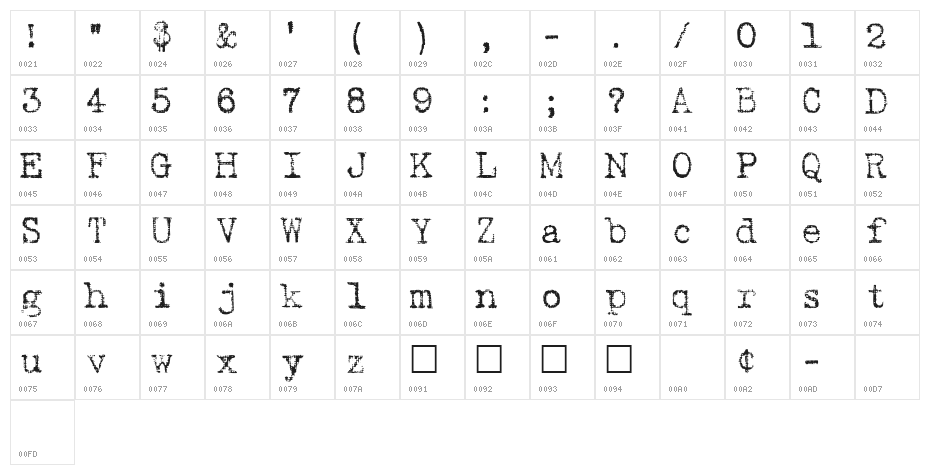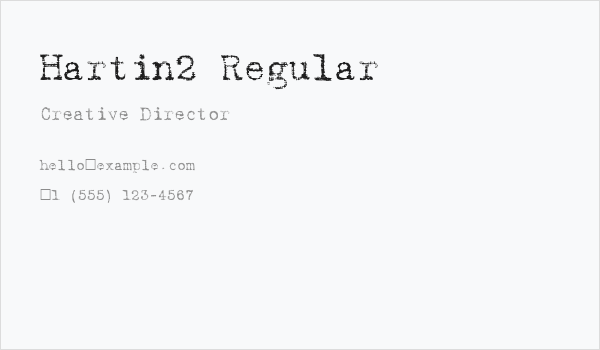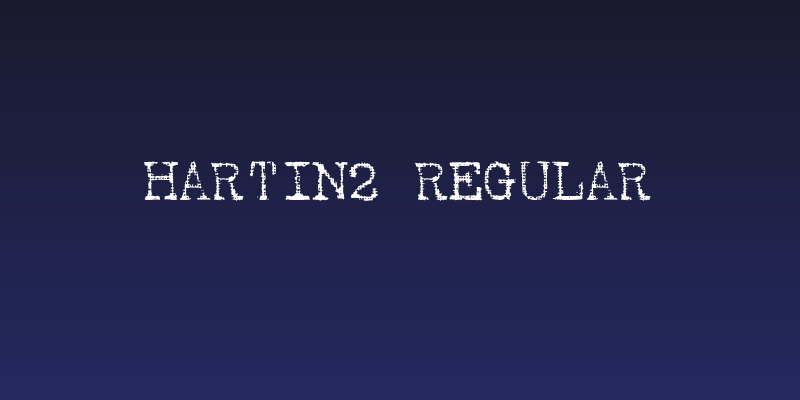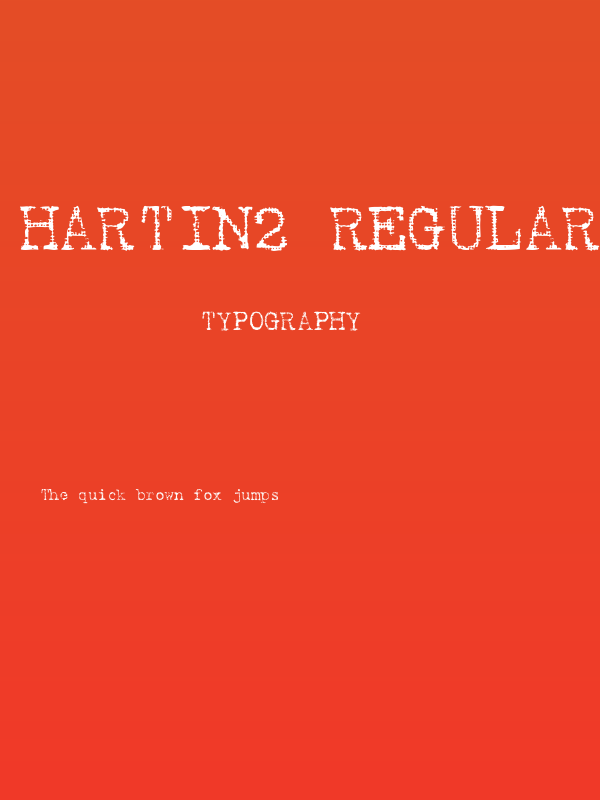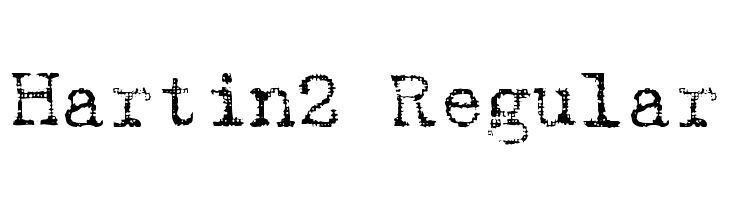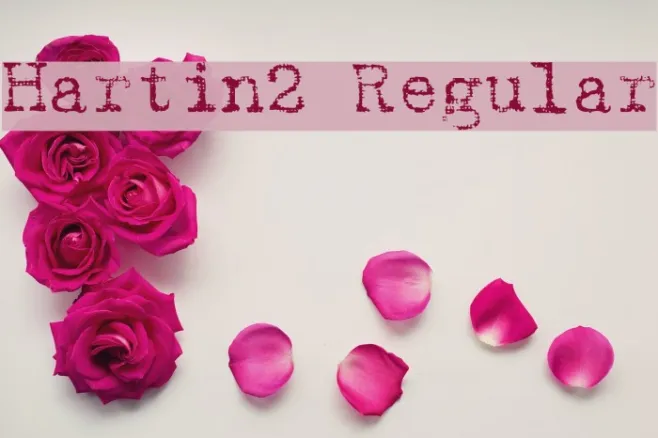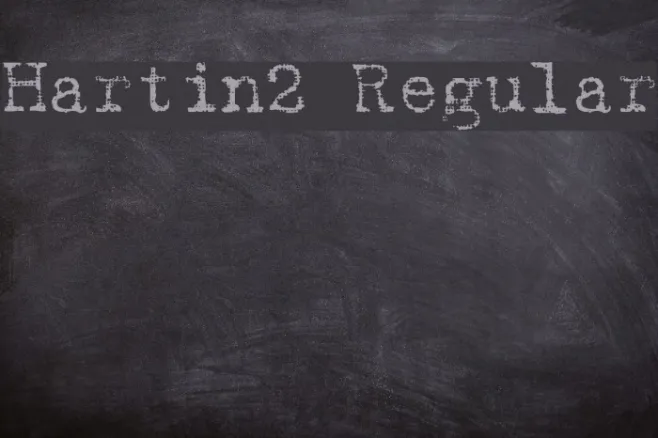
Hartin2 Regular Font
Hartin2 Regular Description
This font features a distressed, grunge style with a textured appearance that gives it a worn and rugged look. The characters are serif, with each letter displaying a unique pattern of erosion, creating a vintage and industrial feel. The uppercase and lowercase letters maintain a consistent style, while the numbers and special characters follow the same distressed theme. This font's irregular edges and varied stroke widths contribute to its overall gritty aesthetic, making it stand out in designs that require a bold and unconventional typeface.
| Proposed Projects | Ideal for projects that require a vintage or industrial look, such as posters, album covers, or branding for edgy or alternative products. |